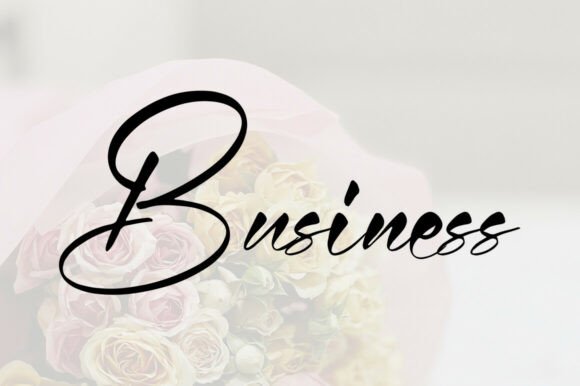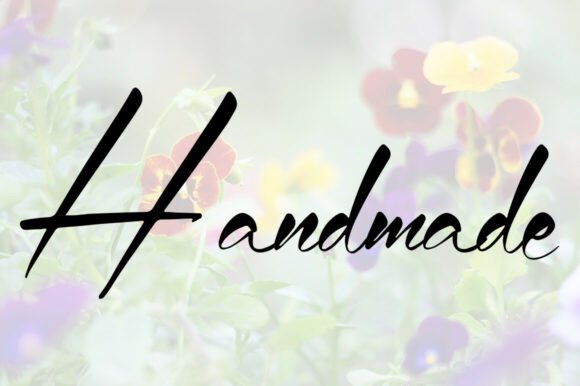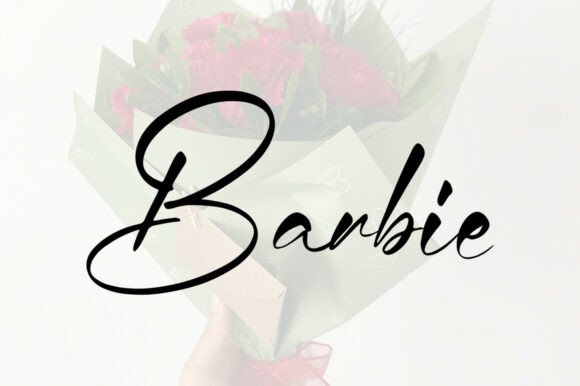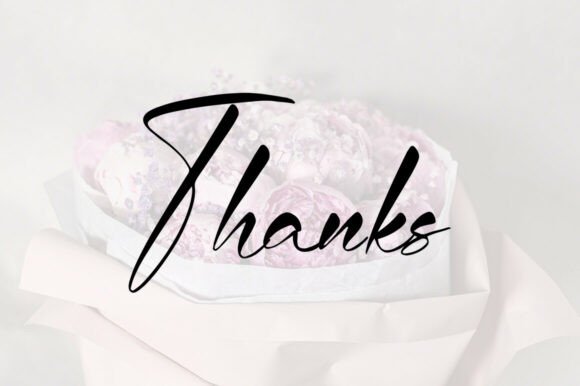
Introducing Glowing Font: Elevate Your Designs with Elegance and Sophistication
In the world of typography, a well-crafted font can make all the difference in elevating your design to the next level. For designers and crafters seeking a touch of elegance and sophistication, Glowing Font is an exceptional choice. This beautiful, well-balanced, and graceful script font is defined by smooth curves, making it perfect for fashion branding, editorial designs, and a wide range of creative projects.
The Characteristics of Glowing Font
Glowing Font boasts a unique combination of characteristics that set it apart from other script fonts. Its smooth, flowing curves create a sense of fluidity and movement, while its well-balanced design ensures that it remains clear and legible, even at smaller sizes. This font is meticulously crafted to provide a luxurious feel, making it an ideal choice for high-end fashion brands, editorial designs, and any project that demands a touch of sophistication.
Perfect for Fashion Branding
Fashion branding requires a font that exudes elegance, style, and a deep understanding of the industry’s aesthetic. Glowing Font meets these requirements with ease, offering a refined and polished look that aligns perfectly with the fashion world’s high standards. Whether you’re designing a logo, creating promotional materials, or crafting a brand identity, Glowing Font provides the perfect blend of beauty and functionality.
Ideal for Editorial Designs
Editorial designs, including magazines, blogs, and newspapers, require fonts that are not only visually appealing but also highly legible. Glowing Font’s graceful script style adds a touch of class to any editorial design, making it an excellent choice for article titles, headings, and other prominent text elements. Its smooth curves and balanced design ensure that your content stands out while maintaining readability.
Key Features of Glowing Font
- Beautiful and Elegant Design: Glowing Font features smooth curves and a well-balanced design, making it perfect for projects that require a touch of elegance.
- Highly Legible: Despite its script nature, Glowing Font remains clear and legible, even at smaller sizes, making it versatile for various design applications.
- Versatile: Suitable for a wide range of projects, including fashion branding, editorial designs, logos, and more.
- Luxurious Feel: Adds a luxurious and sophisticated touch to any design, perfect for high-end brands and projects.
Glowing Font is a versatile and elegant script font that can elevate your designs to new heights. Its smooth curves, well-balanced design, and luxurious feel make it an ideal choice for fashion branding, editorial designs, and a multitude of creative projects. By incorporating Glowing Font into your typography arsenal, you’ll be equipped to create stunning, sophisticated designs that leave a lasting impression.
Whether you’re a professional designer or a crafty DIY enthusiast, Glowing Font offers the perfect blend of beauty, functionality, and elegance. Discover the difference that Glowing Font can make in your designs and bring your creative visions to life with style and sophistication.